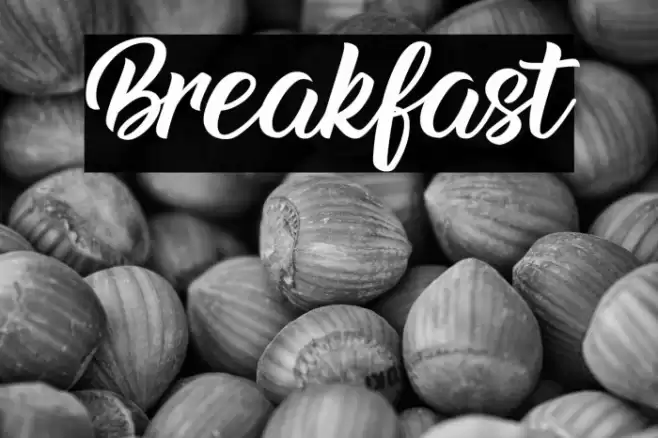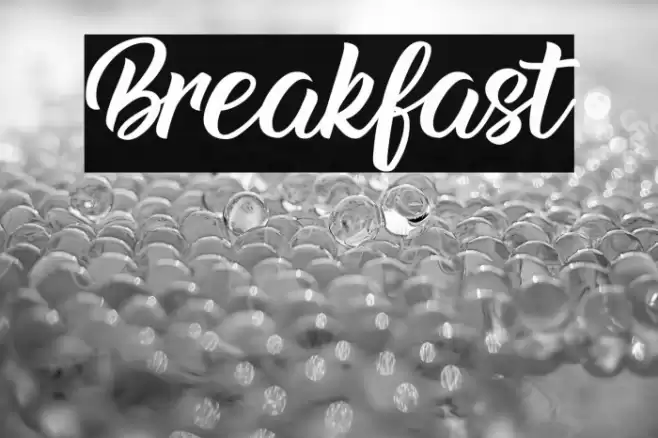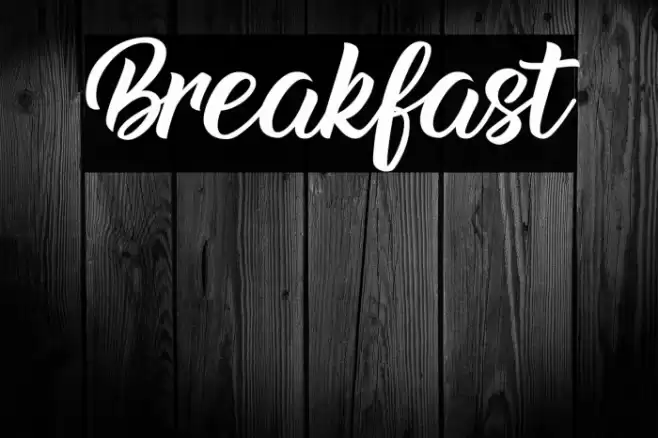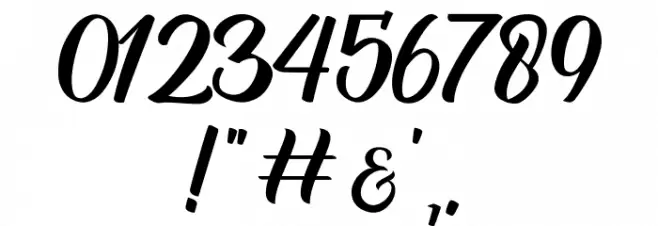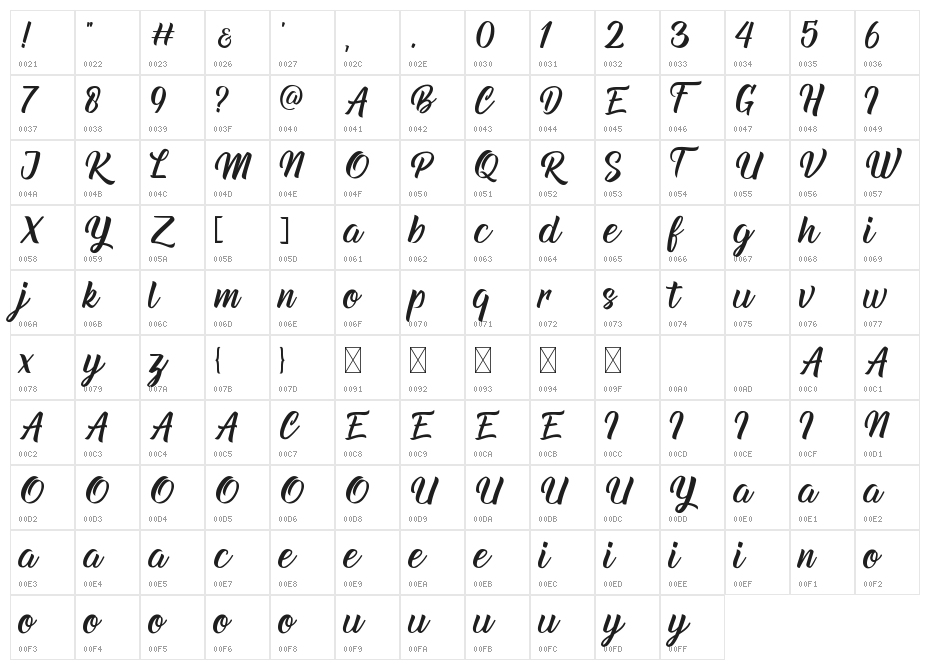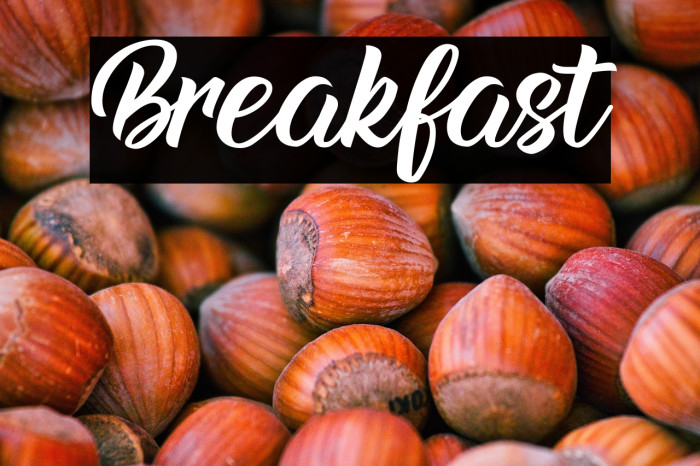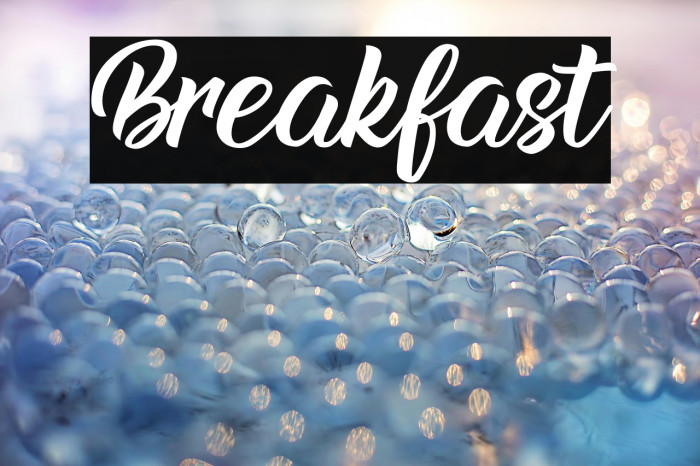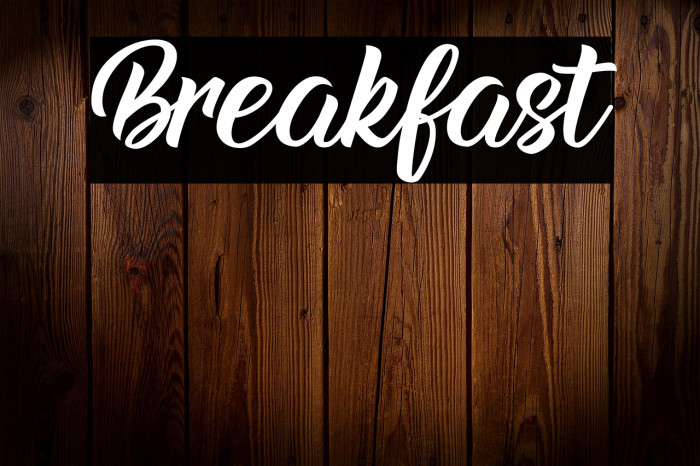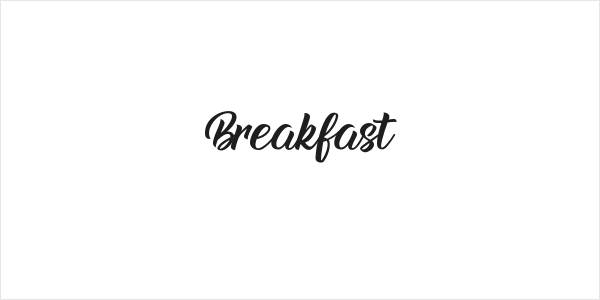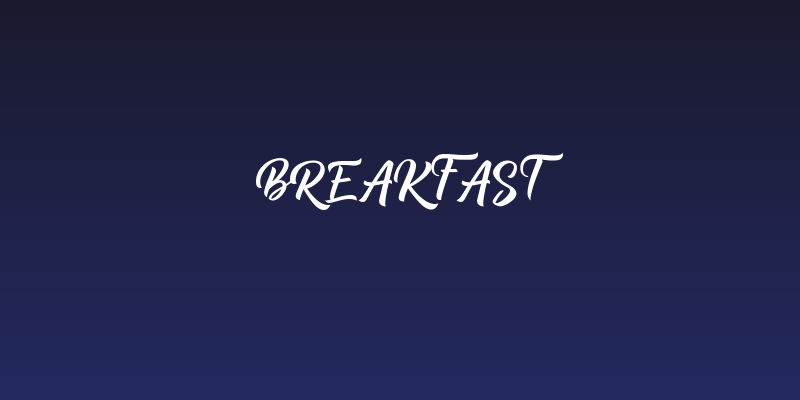
Breakfast Font
Breakfast Description
This font exudes a lively and dynamic energy, characterized by its flowing, cursive style. The letters are interconnected with smooth, sweeping strokes that give it a sense of motion and elegance. The uppercase letters are bold and prominent, while the lowercase letters maintain a consistent fluidity. Numbers and special characters follow the same cursive style, ensuring uniformity across all elements. The overall appearance is both stylish and approachable, making it suitable for a variety of creative applications.
A lively, cursive font with interconnected, flowing strokes from Regular fonts.
- Proposed Projects: Ideal for wedding invitations, greeting cards, branding, and social media graphics.
- Use Case: Logos, Headlines, Invitations